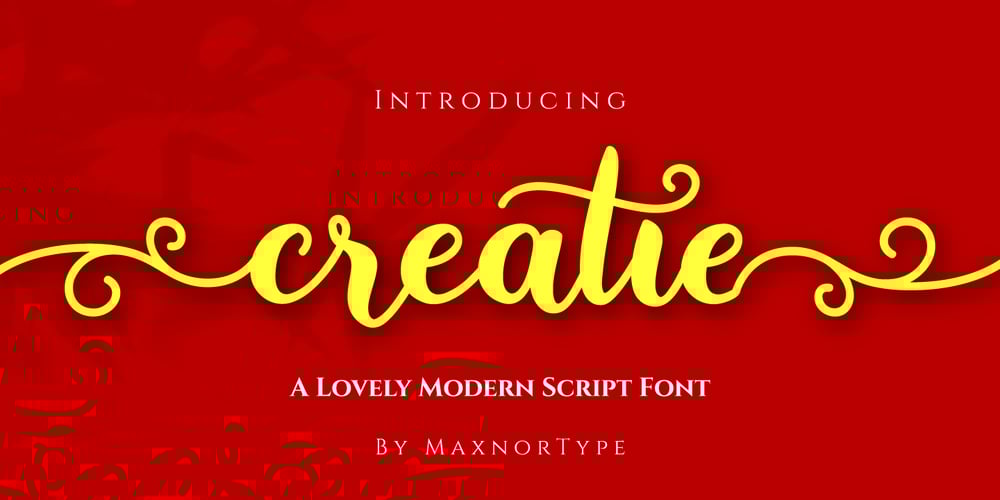
Creatie
Creatie font
Creatie Font Family was designed by Ahmad N. and published by MaxnorType. Creatie contains 1 styles and family package options. Creatie is a lovely modern script font. This beautiful hand-lettered script font is perfect for styling logos, stationery, social media, websites and much more! Creatie was created with multilingual support, ligatures, contextual alternates, stylistic alternates, swash and wings, allowing you to create a great look to your projects. These features work well in programs that support OpenType features, such as Adobe Indesign, Illustrator, and Photoshop. The start wings and end wings use contextual alternates and ligature features, making it easy to access and change the wing style simply by changing the number on the end of the wing formula.